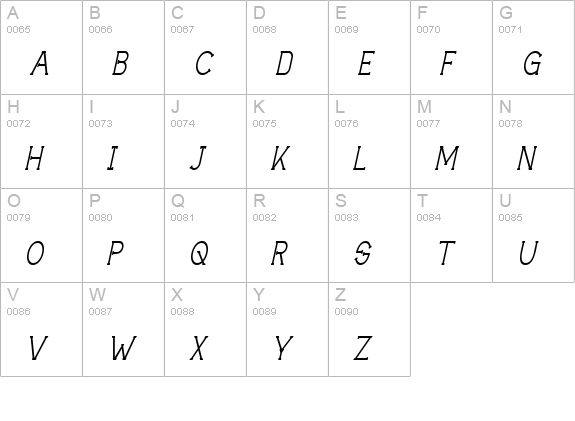
Introducing the magnificently intricate Technically Insane NarrowItalic font! This remarkable typeface is the epitome of artistic brilliance, designed for those who dare to push the boundaries of creativity. With its slender and elegant letterforms, Technically Insane NarrowItalic adds a touch of sophistication to any design project. Every curve and angle of this font has been meticulously crafted to portray a sense of controlled chaos. Its narrow and italic style exudes an electrifying energy that captivates the viewer's attention. Whether used in headlines, logos, posters, or even body text, Technically Insane NarrowItalic effortlessly commands the eye, leaving a lasting impression. But that's not all - this extraordinary font is not only visually stunning, but also freely available for download at FontsMarket.com! Yes, you heard it right - you can now unleash your imagination and take advantage of this captivating font without spending a dime. Simply head over to FontsMarket.com and experience the seamless ease of acquiring this masterpiece. Technically Insane NarrowItalic is the perfect choice for graphic designers, typographers, and artists seeking a font that breaks away from convention. Its unique blend of technical precision and artistic flair opens up a world of possibilities, allowing you to make a bold statement in your designs. Don't miss out on this opportunity to enrich your creative endeavors with Technically Insane NarrowItalic. Download it for free today at FontsMarket.com and let your imagination run wild with the endless possibilities this font has to offer. Embrace the insanity and make a lasting impression with Technically Insane NarrowItalic!